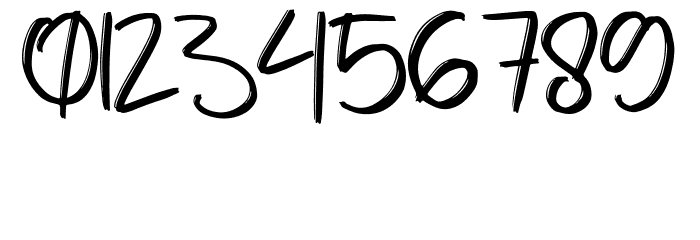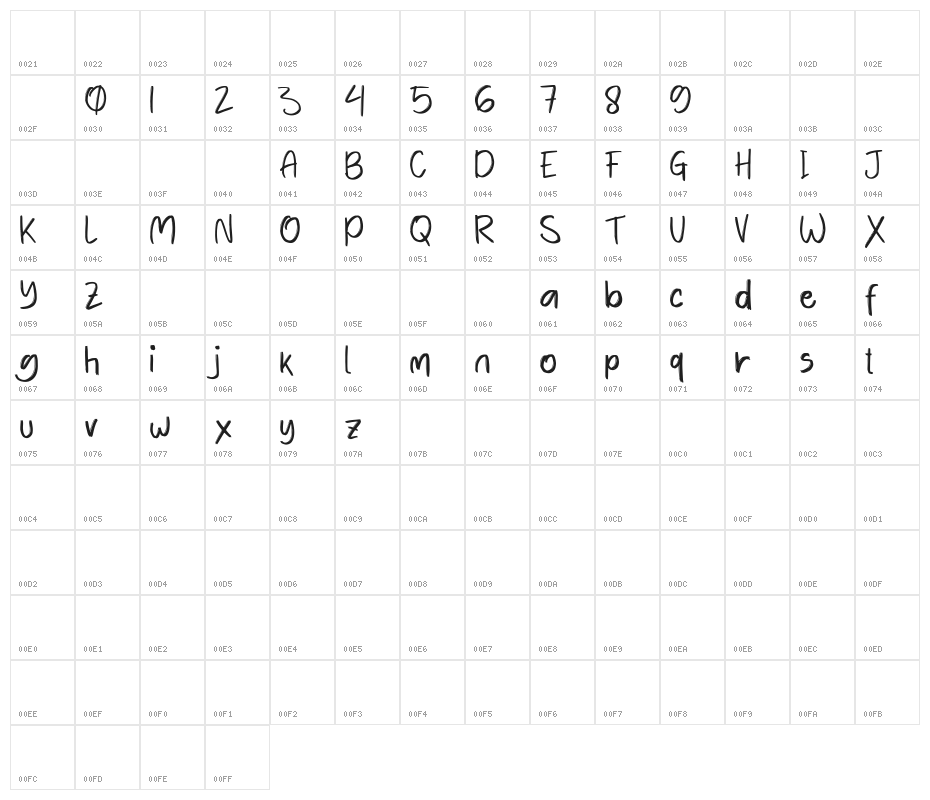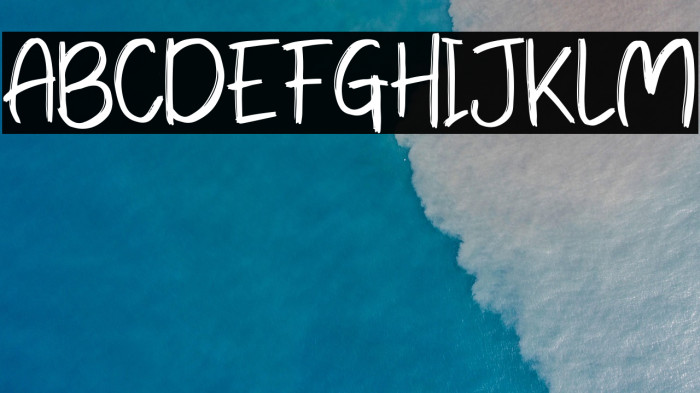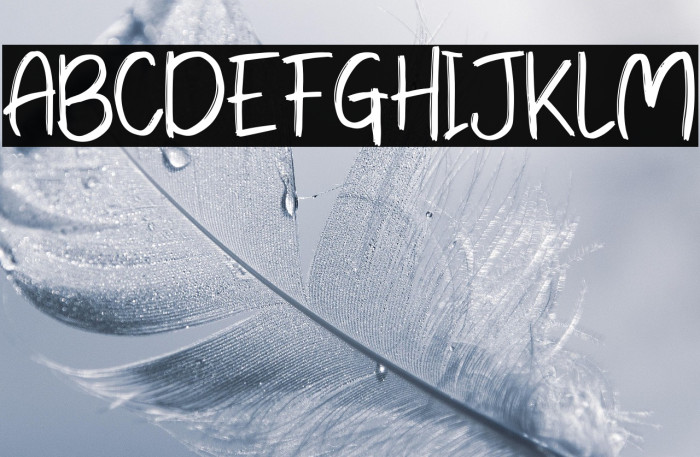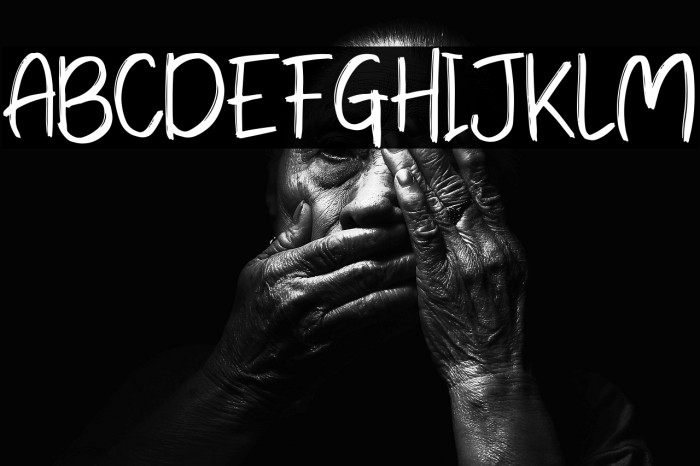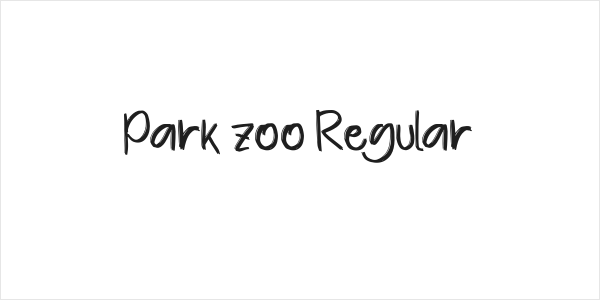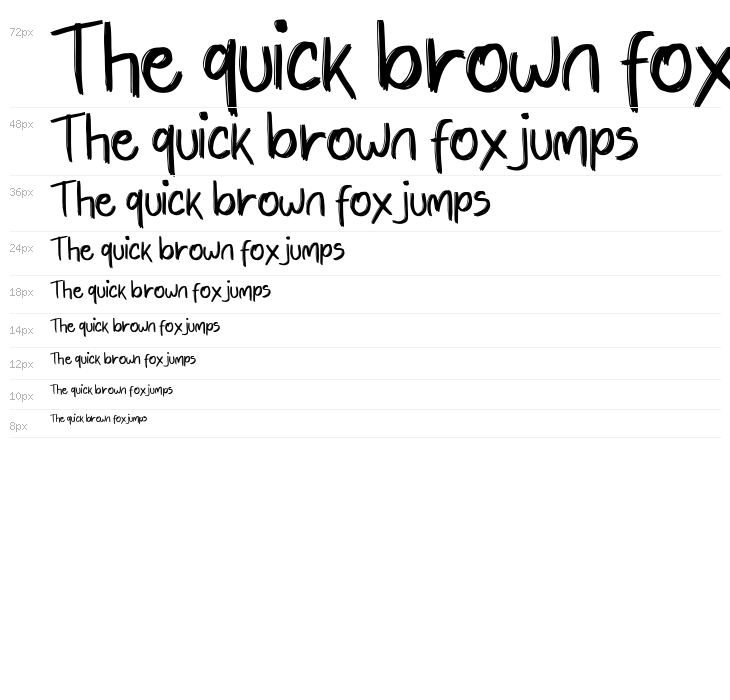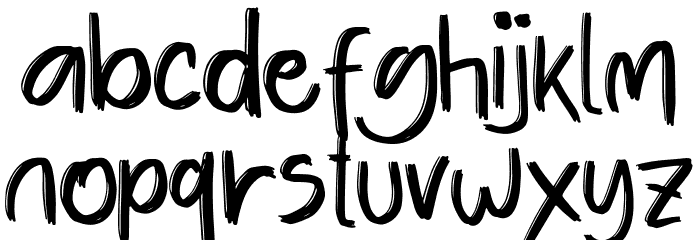
Park zoo Regular Font
Park zoo Regular Description
This font features a playful and energetic handwritten style, characterized by its bold and dynamic strokes. The letters have a casual, informal appearance, with a slightly irregular baseline that adds to its charm. The uppercase and lowercase letters are well-balanced, maintaining a consistent flow throughout. The numbers and special characters complement the alphabet with the same lively and spontaneous feel. This font exudes a sense of fun and creativity, making it ideal for projects that require a personal touch.
| Use Case | Logos, Headlines, Informal Invitations |
| Proposed Projects | Ideal for greeting cards, children's books, playful branding, and creative social media graphics. |